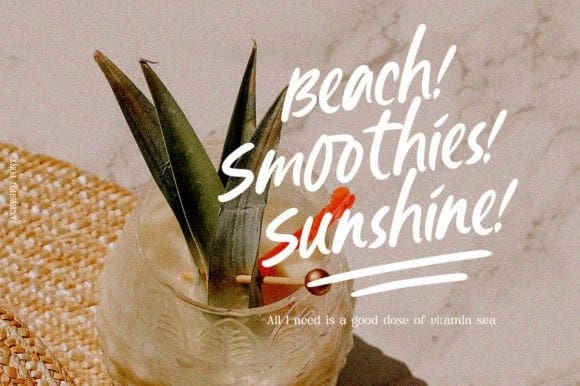
Hello Florida Font
Hello Florida Font is a handwritten font with a modern and casual feel. This font is neatly crafted and highly detailed. Whatever the topic, this font will be a wonderful asset to your font library, as it has the potential to enhance any creation.